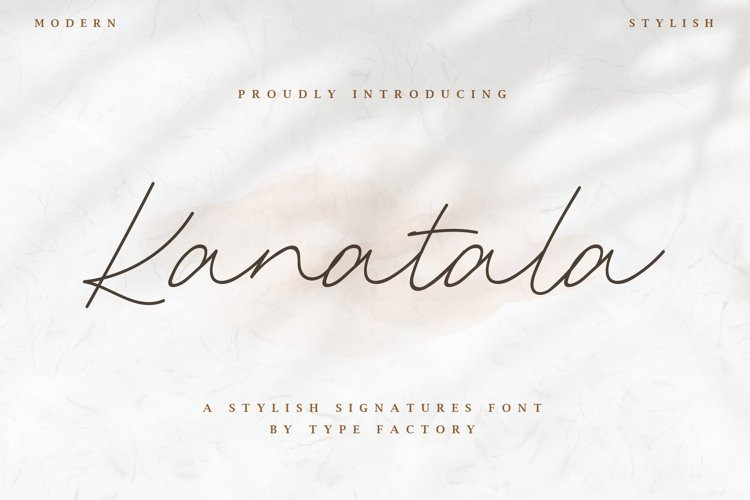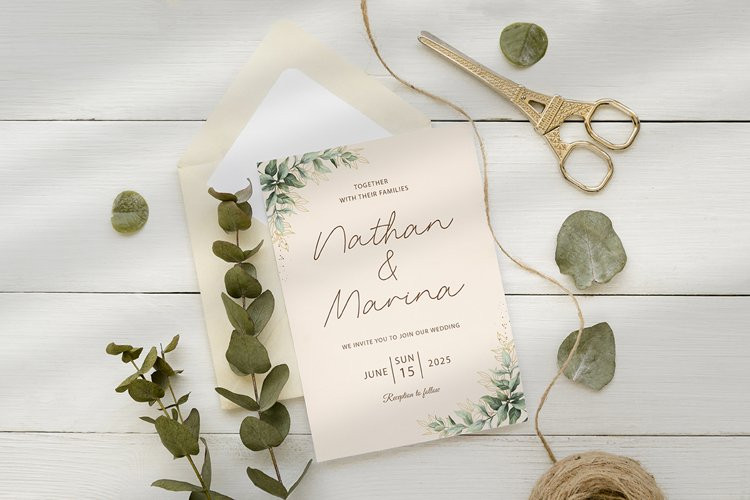
Kanatala Font
Kanatala has an authentic handwriting style that will take your projects to another level.
It’s perfect for logos, products packaging and wedding invitations.